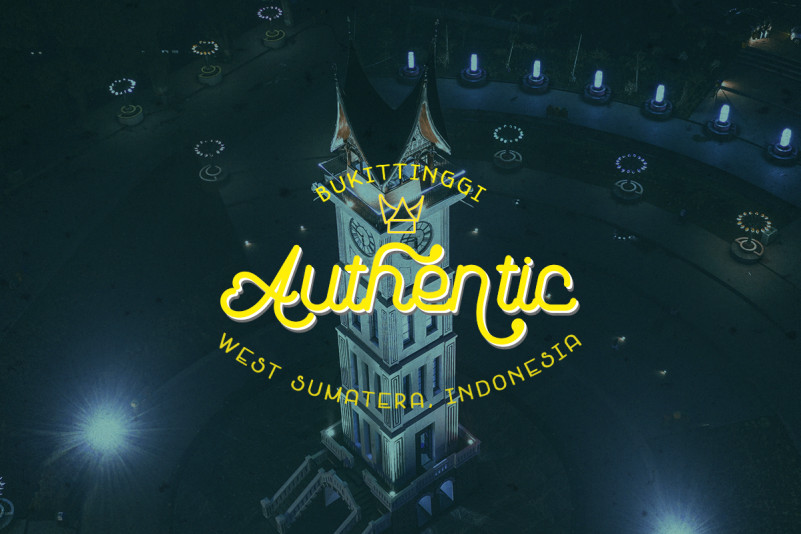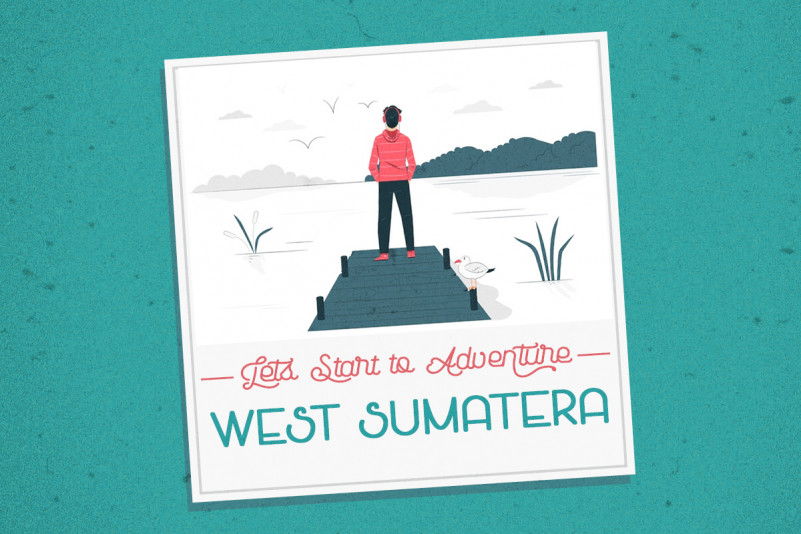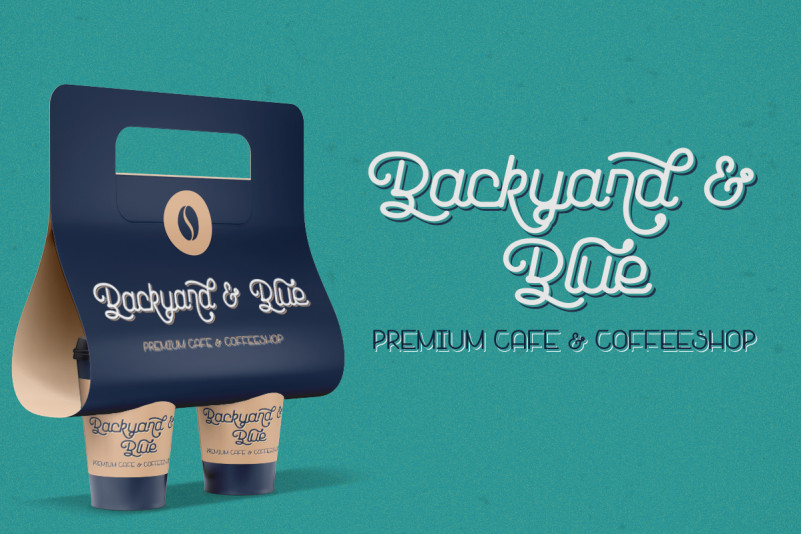
Modemy Font
Modemy Script Font
This is a beautiful and Elegant Mono-Line Script Font, Available 2 styles are perfect for Logo Design, Branding, Clothing Design, Signage, Poster, Wedding Invitations and so much more! My goal for this font was to create an easy-to-read Monoline Font Script that serves a variety of purposes. Modemy, It has a handcrafted feel and natural touch then tidied up to create a consistent character set. It is perfect for your creative projects.
A fancy and elegant handcrafted font that create to impress your audience and make your branding shine.
Make your projects dance with this elegant and wonderful font wherever you use it. Use it for your
headings, logos, ads, printed quotes, packaging, and even your website or social media branding.